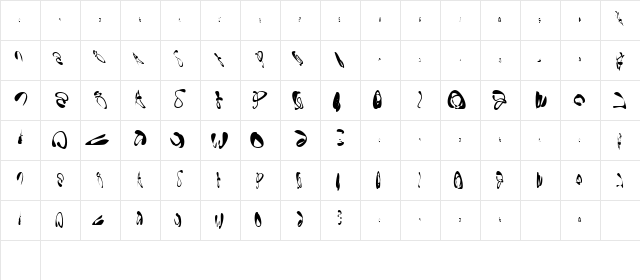
Gornathon Regular
Design Context for Gornathon Typeface
Gornathon is a composed and adaptable typeface that performs quietly and consistently across a wide range of design contexts.